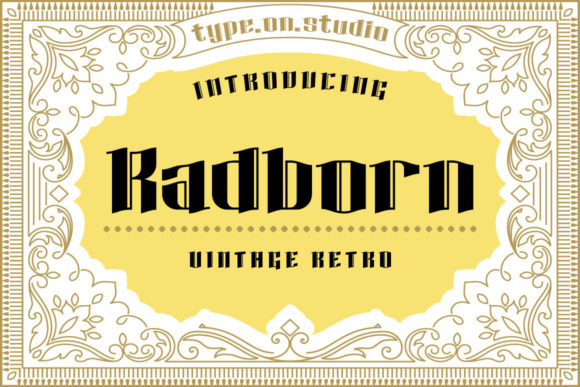
Welcome to the realm of Radborn, a blackletter font family that conjures a captivating aura, ready to transform your creative visions into masterpieces. Step into a world of sharp angles, captivating curves, and bold strokes that demand attention. Radborn Font, exquisitely crafted by the artisans of type.on.studio, stands as a testament to the power of typography.
Unleash your imagination and let Radborn's unique aesthetic elevate your designs to new heights. This extraordinary font is the epitome of elegance and sophistication, adding an air of distinction to your personal and professional projects. Whether you're composing eye-catching headlines, crafting compelling logos, or designing stunning marketing materials, Radborn has the power to leave a lasting impression.
With its mesmerizing forms, Radborn Font transcends the boundaries of ordinary typefaces. Its carefully chiseled edges and intricate details create a striking visual impact that captivates the senses. Revel in the beauty of this font family as it breathes life into your creative endeavors, transforming them into works of art that command attention.
Radborn isn't merely a collection of letters; it's an artistic expression, a symphony of shapes and strokes that dance harmoniously before your eyes. Its blackletter heritage echoes the timeless allure of ancient manuscripts, evoking a sense of wonder and intrigue. Let Radborn's bold presence transport your audience to a bygone era, where stories unfolded on parchment and ink flowed freely from the quill.
Whether you're a seasoned designer or just starting your creative journey, Radborn Font is your ultimate companion. Its versatility knows no bounds, providing endless possibilities for expression. Craft stunning posters that capture the essence of your message, design invitations that exude elegance, or create social media posts that ignite engagement. With Radborn, your creativity has no limits.
Don't settle for ordinary fonts that blend into the background. Embrace the boldness of Radborn and watch as your designs take center stage. Let its captivating charm draw eyes, stir emotions, and leave a lasting impact on your audience. Experience the transformative power of Radborn today and unlock a world of creative possibilities.